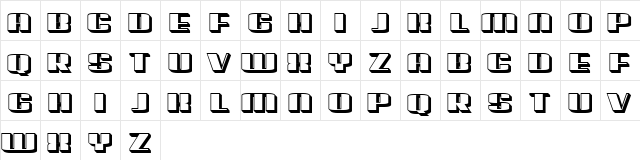
Possession Regular Font Preview
Possession Regular
Design Context for Possession Typeface
Possession is a composed and adaptable typeface that performs quietly and consistently across a wide range of design contexts.